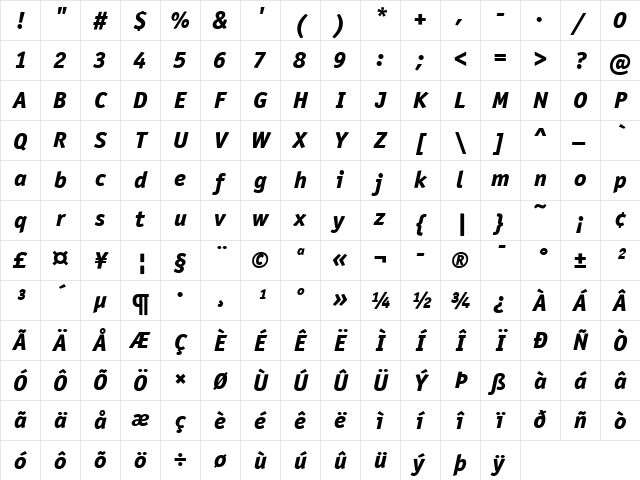
OfficinaSansITC ExtraBold Italic
Style: ExtraBold Italic
Foundry: International Typeface Corporation and by Erik Spiekermann, Ole Schaefer
Design Context for OfficinaSansITC
OfficinaSansITC is a composed and adaptable typeface that performs quietly and consistently across a wide range of design contexts. The slanted form adds forward momentum and visual energy. Its bold stroke weight gives it real presence on the page.
Pro Tip: Use OfficinaSansITC for emphasis, pull quotes, and subheadings where its slanted energy can add rhythm to the layout.
Who designed the OfficinaSansITC ExtraBold Italic font?